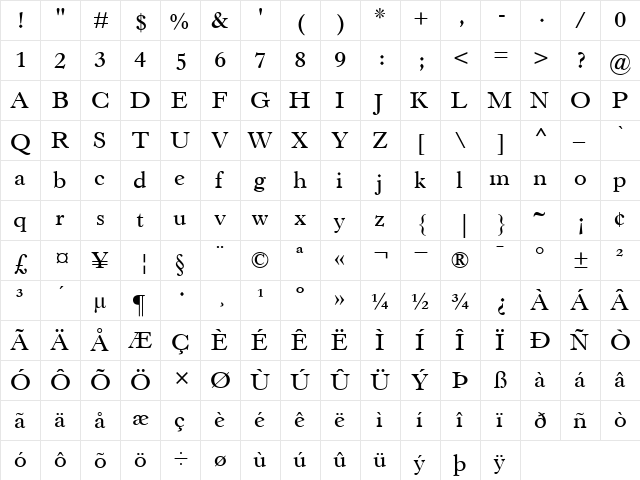
HorleyOldStyleMT-SemiBold Semi Bold
Design Context for HorleyOldStyleMT-SemiBold Typeface
HorleyOldStyleMT-SemiBold carries the refined structure of traditional serif typography, with bracketed terminals and considered proportions that communicate credibility and craft. The heavy weight commands attention and anchors typographic hierarchies.
Pro Tip: Set HorleyOldStyleMT-SemiBold with slightly loose tracking in headlines to let each letterform's detail read clearly at display sizes.